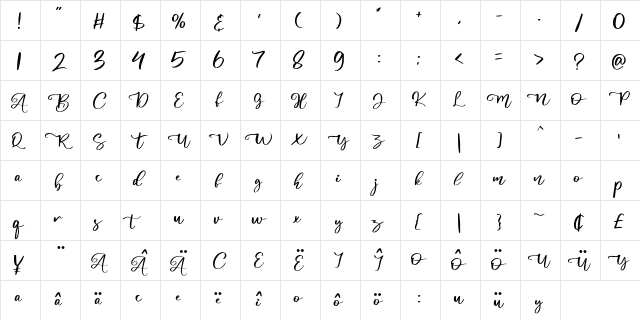
Abiland Regular
| Foundry | Vultype Co |
| Designer | Vultype Co |
Design Context for Abiland Typeface
Abiland is a composed and adaptable typeface that performs quietly and consistently across a wide range of design contexts.